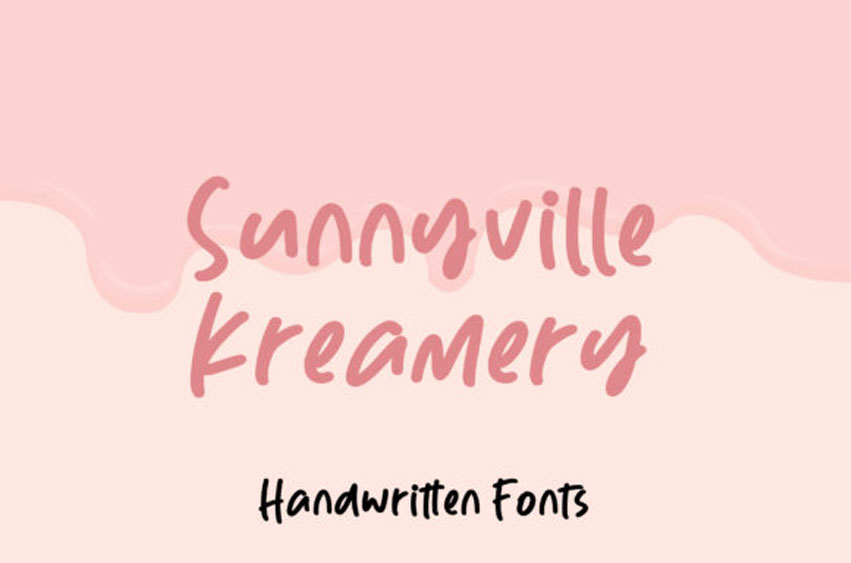
Sunnyville Kreamery Font
Sunnyville Kreamery Font is a cute and charming handwritten font. Whimsical and a bit quirky, this font will brighten up each of your designs.